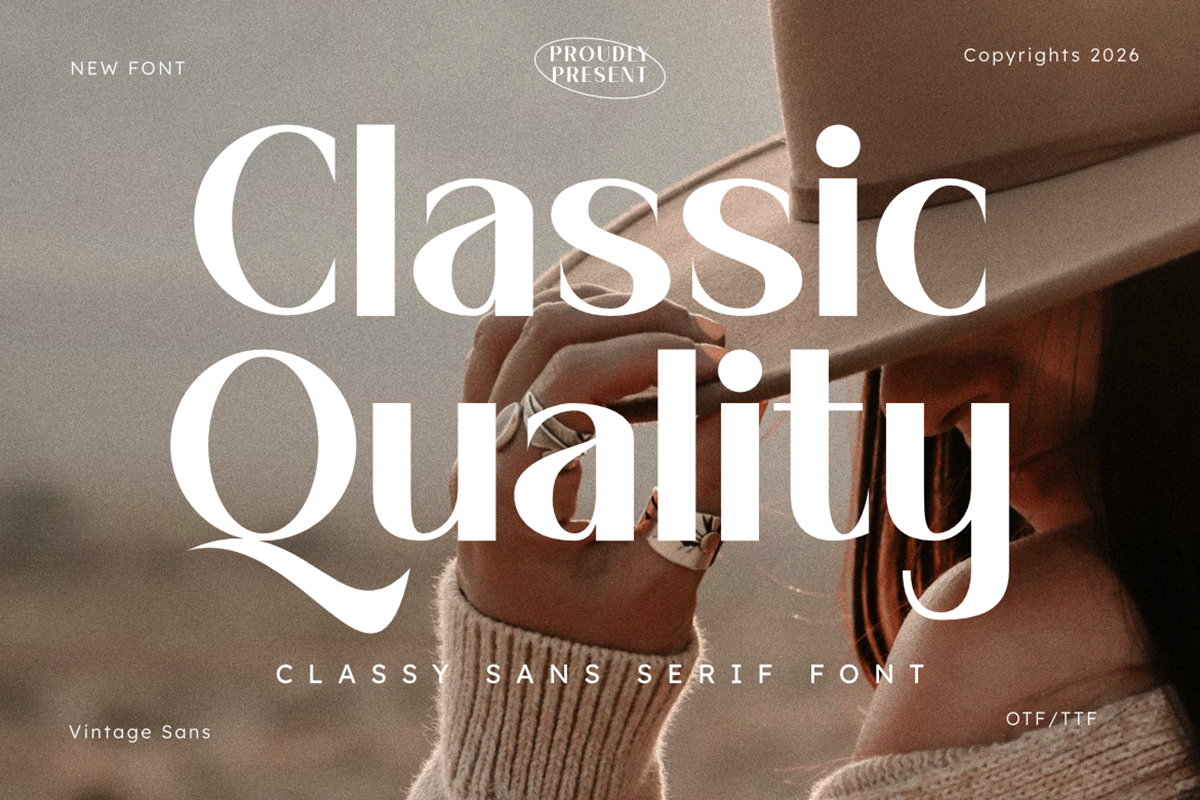
Classic Quality – Sans Serif Font is a modern professional font designed for sophisticated branding and high-end design projects. Its clean and elegant letterforms provide a contemporary yet timeless feel, striking a perfect balance between vintage charm and modern aesthetics. This font embodies the essence of modern minimalism while maintaining a sense of luxury and refinement, making it stand out in any high-class visual composition.